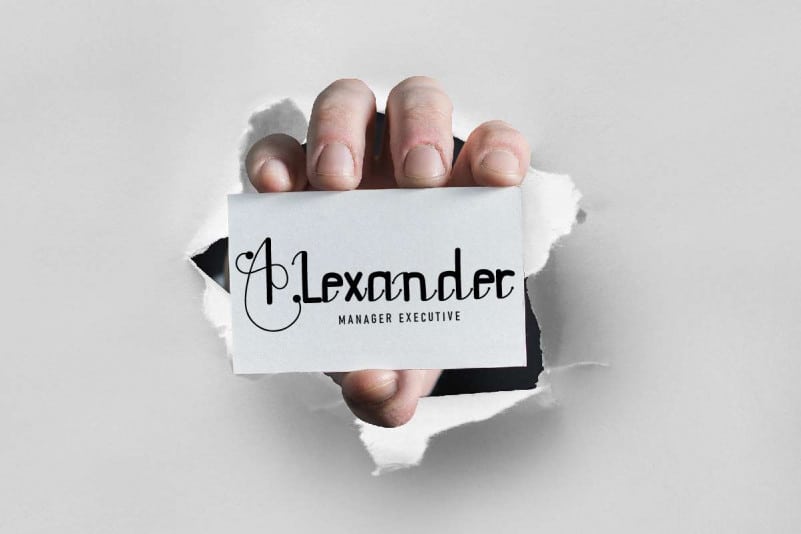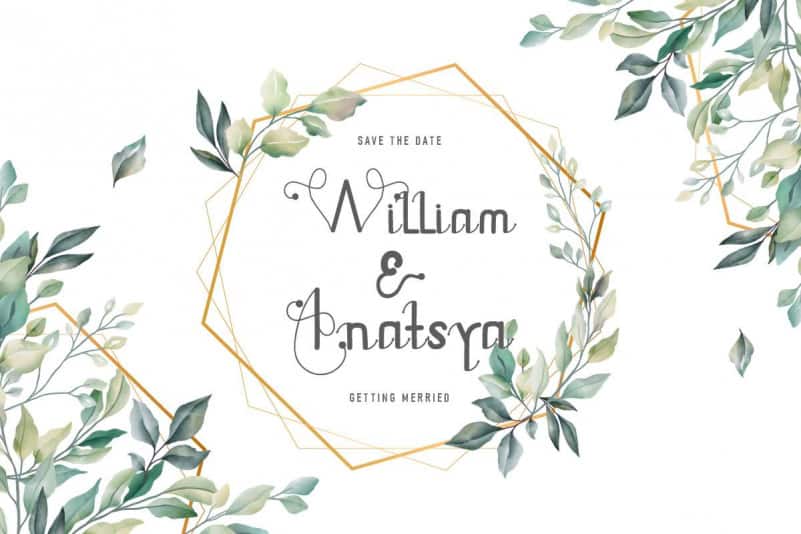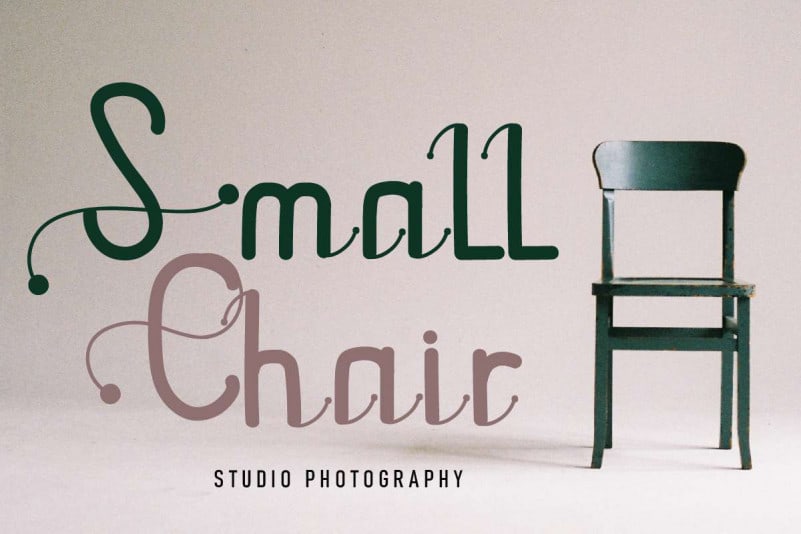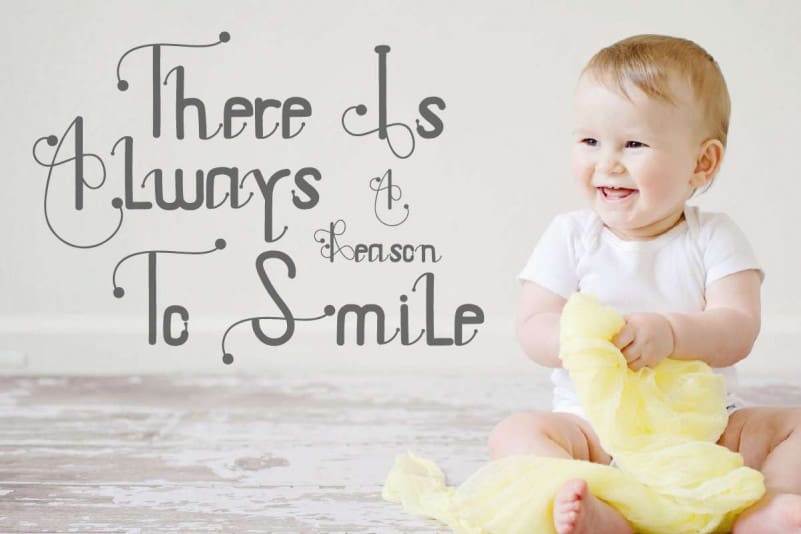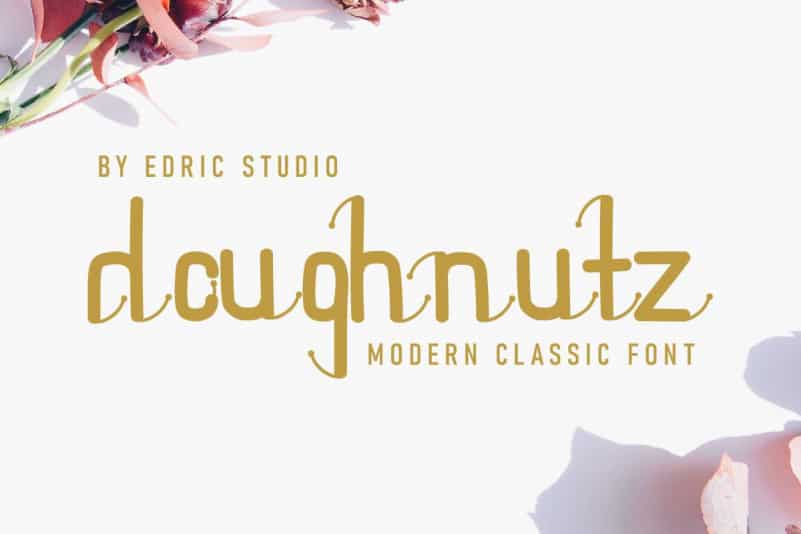
Doughnutz Display Font
The styles of Doughnutz Display Font are classic, luxury, gold, vintage, stylish, sophisticated and casual.
Doughnutz Display Font will be great for any projects including : branding, logo, stationery, business card, signage, flyer, brochure etc. Almost all industries will be match for this typeface: wedding, events, real estate, architect, law firm, florist, gardening, makeup artist, travel, hotel, musician etc